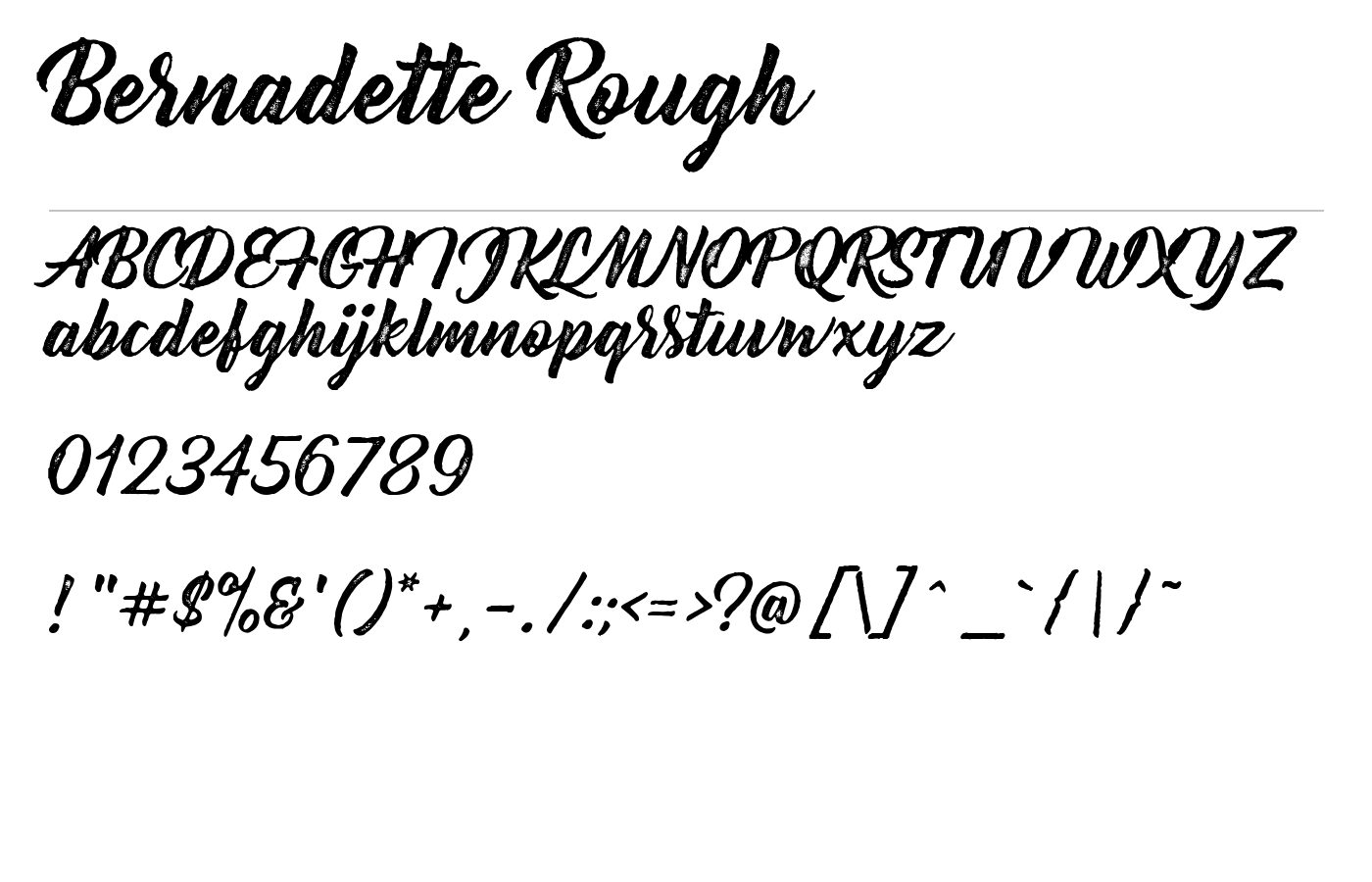
Bernadette Rough is a casual script font with a textured, hand-painted feel that adds personality and warmth to any design. Its moderate weight, slightly condensed width, and lively, connected letterforms make it perfect for creative branding, invitations, or packaging that seeks a playful yet authentic look. This font works well in headlines or logos where a handcrafted, approachable style is desired.
Bernadette Rough Font
About Bernadette Rough Font
| Designer | Clement Nicolle |